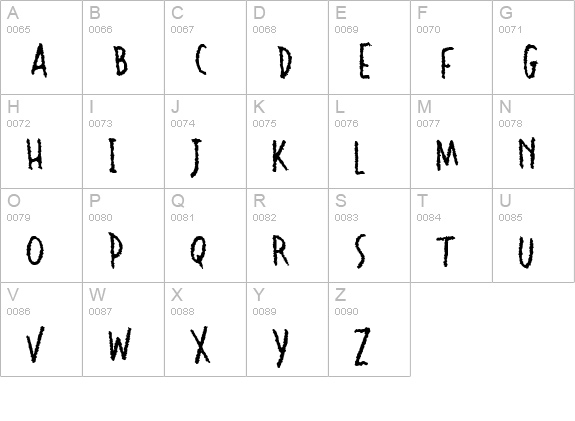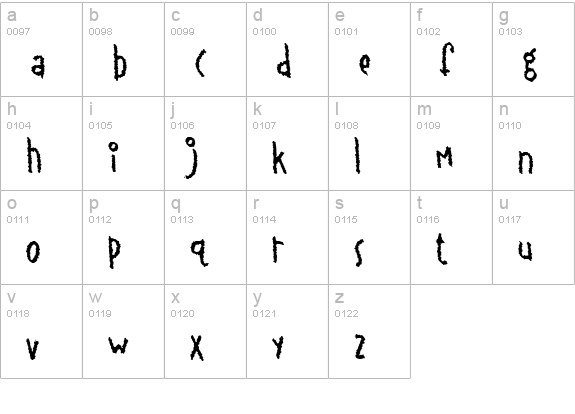
CK Porridge Font Details
Introducing CK Porridge font, a delightful and whimsical typeface perfect for adding a touch of charm to your designs. This font exudes a sense of warmth and comfort, just like a bowl of hearty porridge on a cold morning. With its rounded edges and friendly appearance, CK Porridge is sure to bring a smile to your audience's faces. The best part? CK Porridge font is completely free to download at FontsMarket.com. Yes, you read that right - this charming font can be yours at no cost, allowing you to create beautiful designs without breaking the bank. Whether you're working on a cozy branding project, a playful poster, or a heartwarming greeting card, CK Porridge font is the perfect choice to add a touch of sweetness to your creations. Don't miss out on the opportunity to enhance your designs with this lovely and free font. Download CK Porridge today and let your creativity flow!